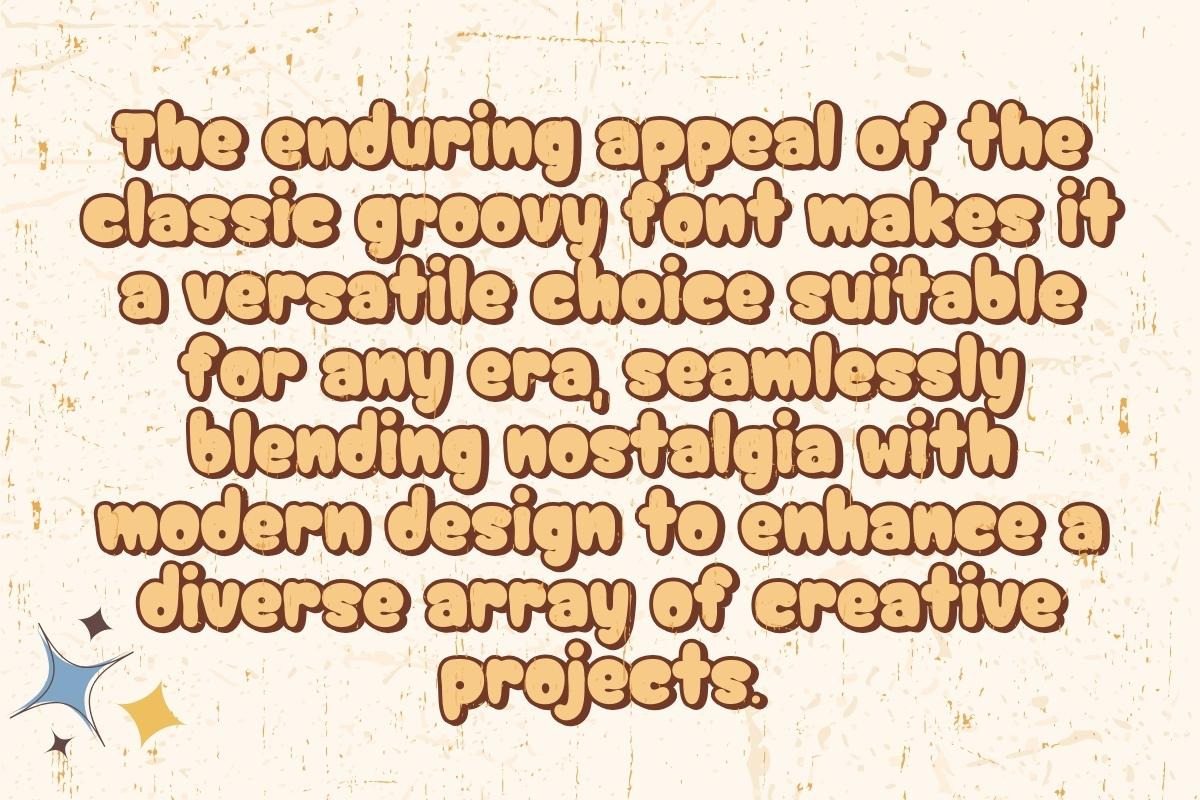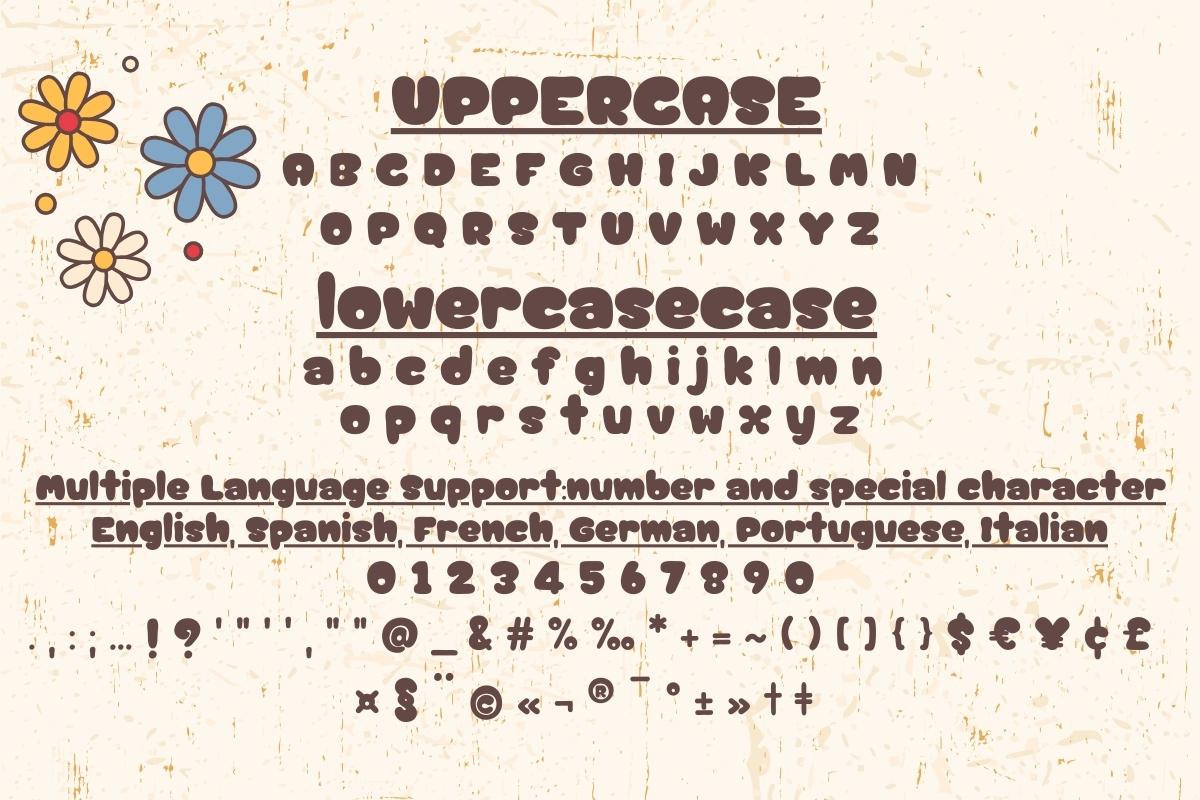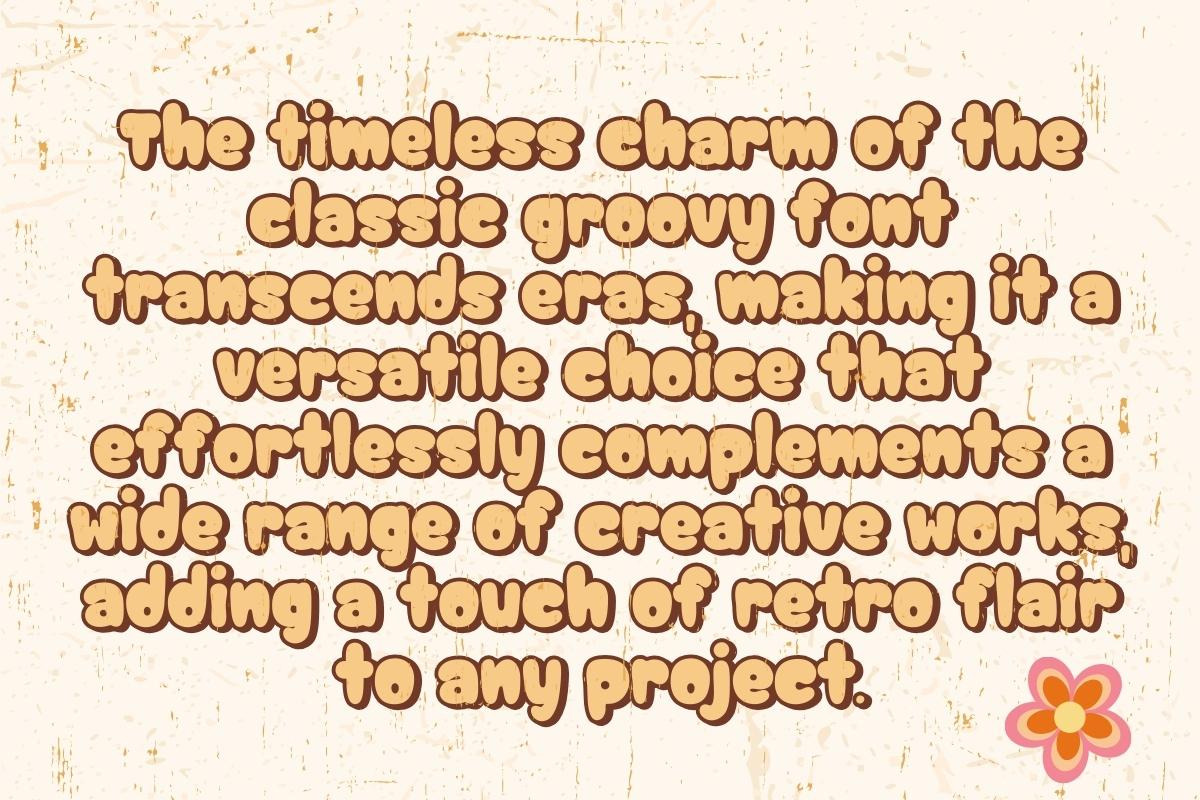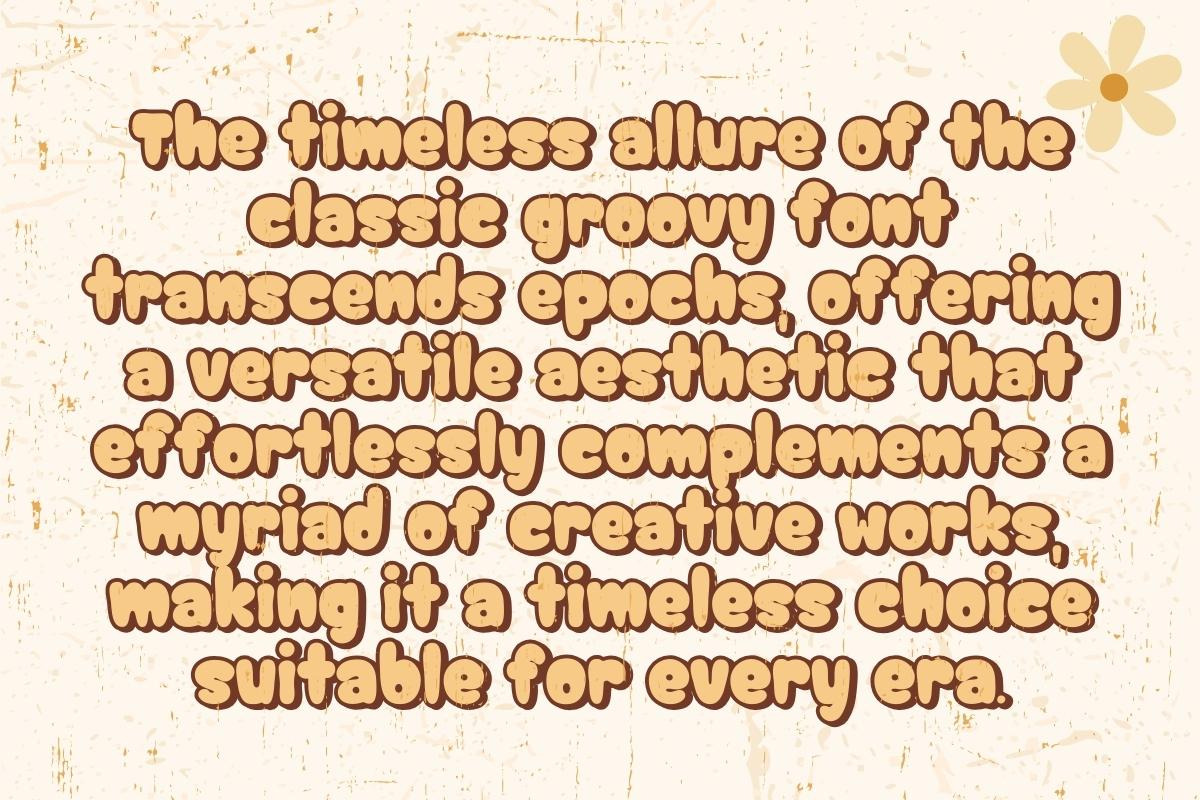
Aint no Groovy - Handwritten
The enduring charm of the classic groovy font makes it a versatile typographic choice, seamlessly adaptable to a spectrum of creative projects, ensuring its timeless appeal across every era.